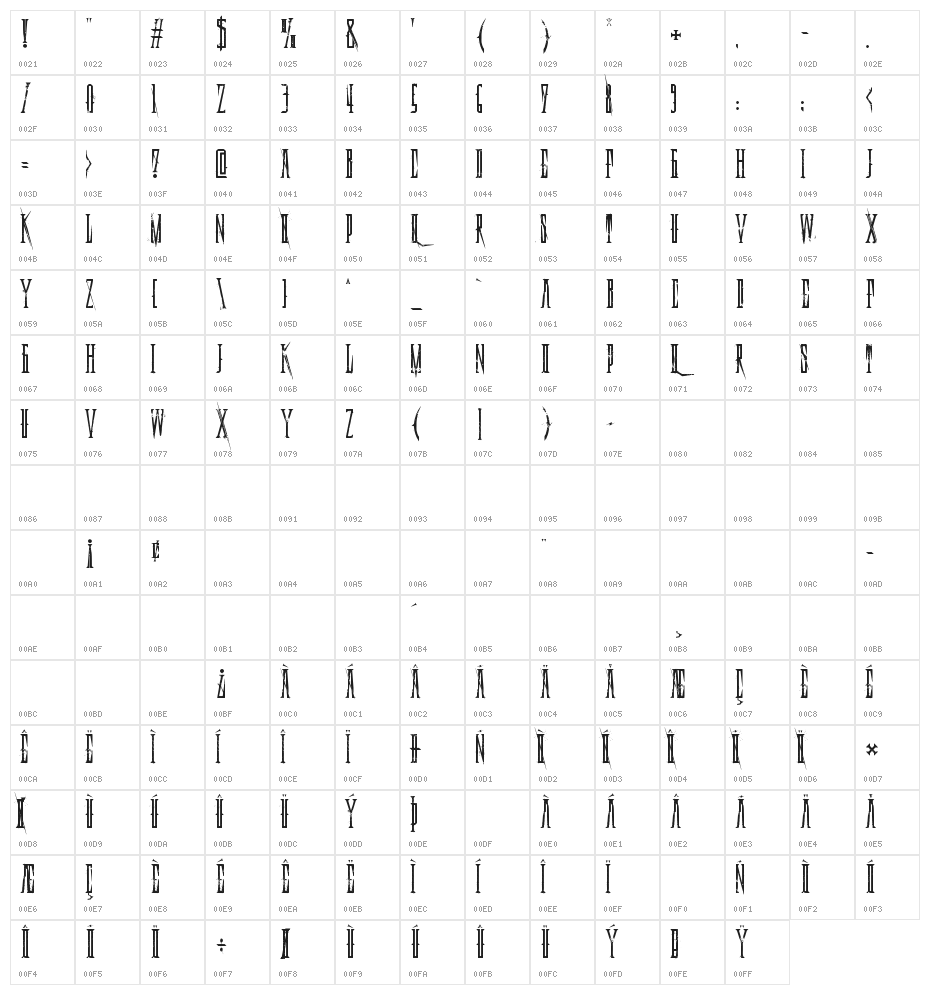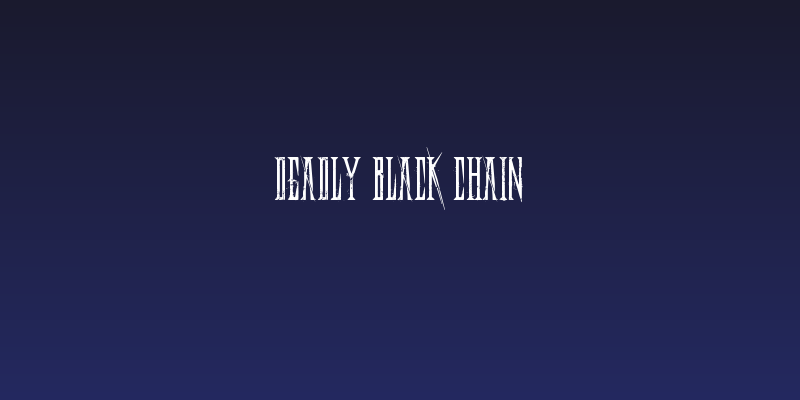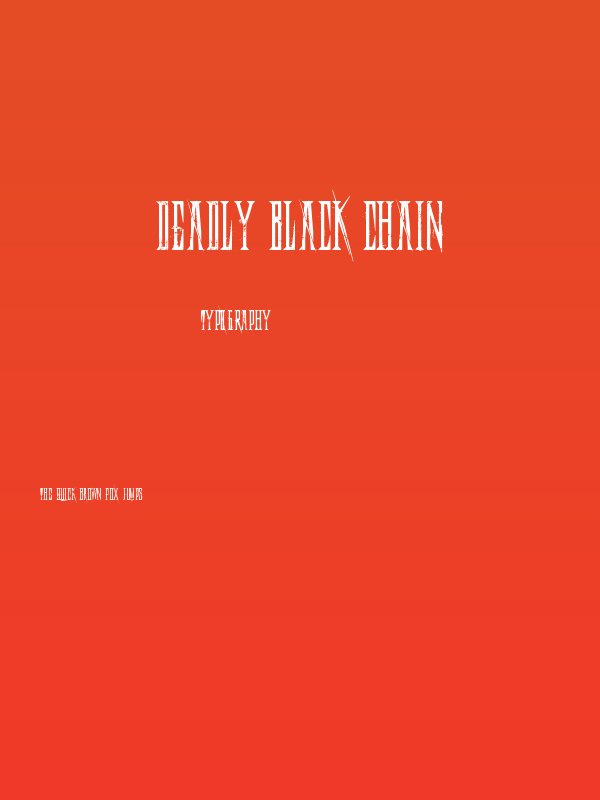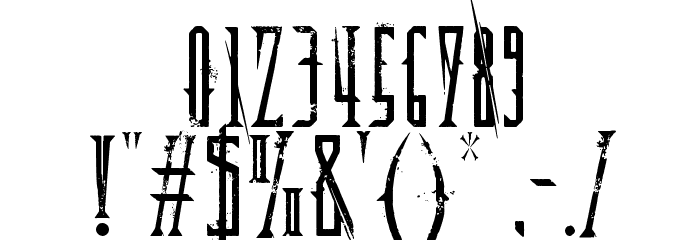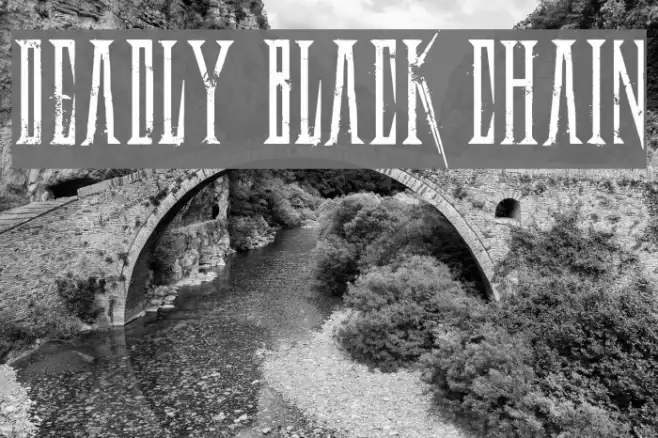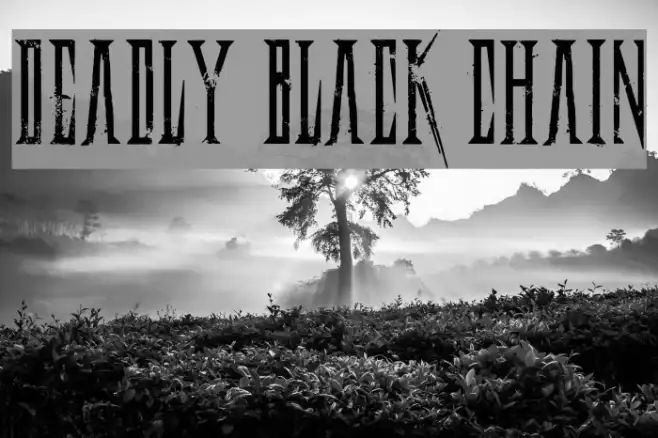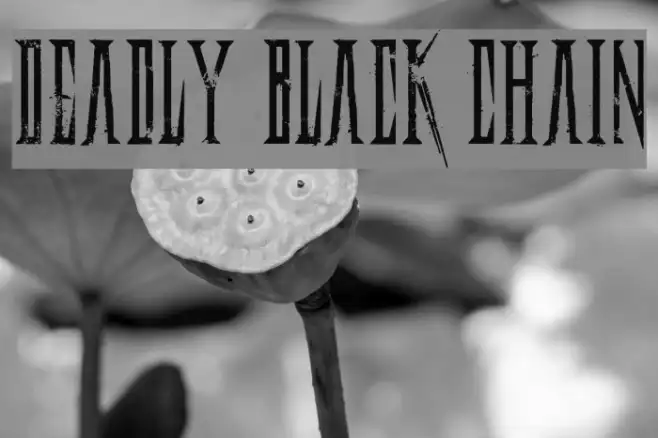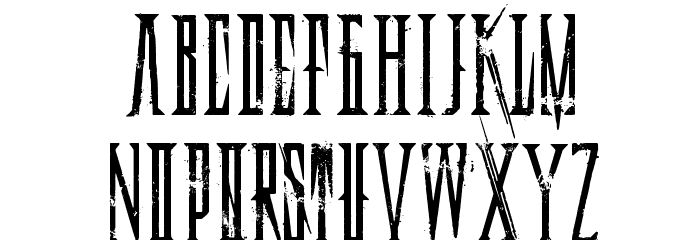
Deadly Black Chain Font
Deadly Black Chain Description
This font features a bold and distressed appearance, characterized by its tall, narrow letterforms with sharp, angular edges. The texture gives it a gritty, worn-out look, reminiscent of urban decay or industrial themes. Each character appears to have been weathered or eroded, adding to its rugged aesthetic. The uppercase and lowercase letters maintain a consistent style, with numbers and special characters following suit. This font's unique design makes it stand out, suitable for projects that require a strong, impactful visual statement.
| Proposed Projects | Ideal for album covers, posters, branding for edgy or alternative products, and any design needing a bold, industrial feel. |